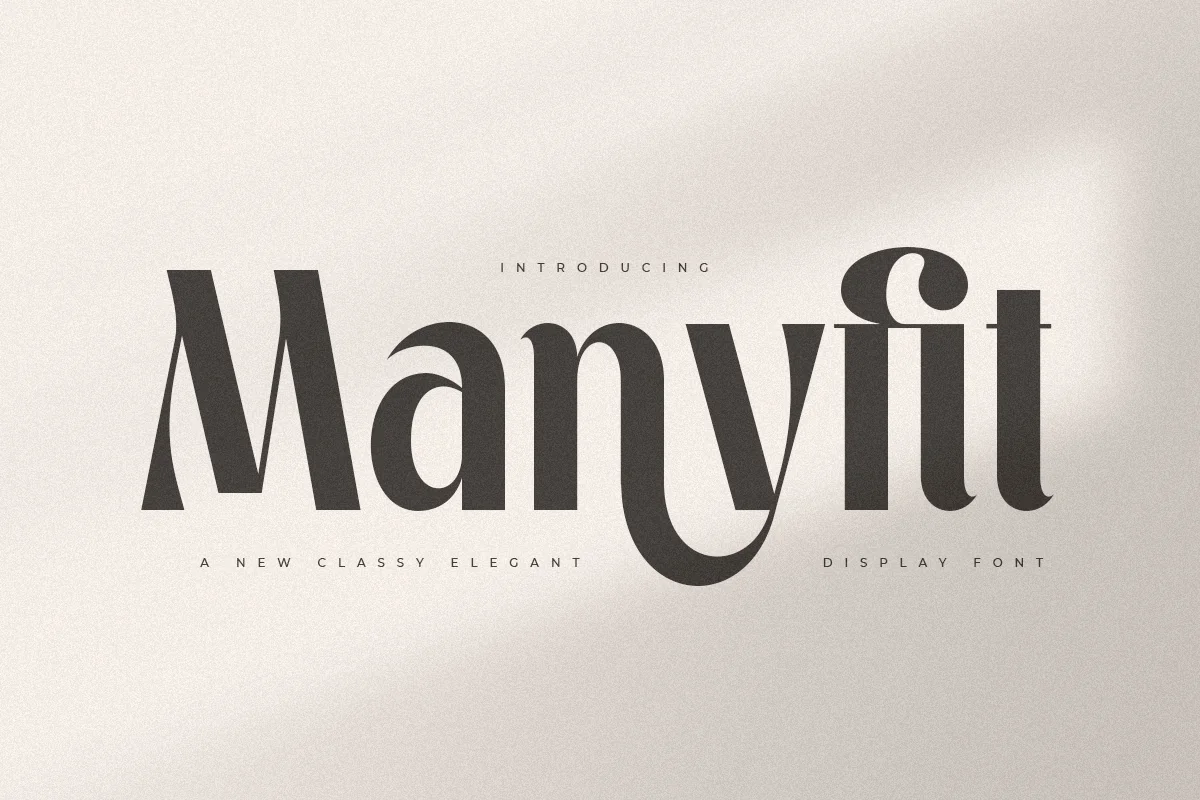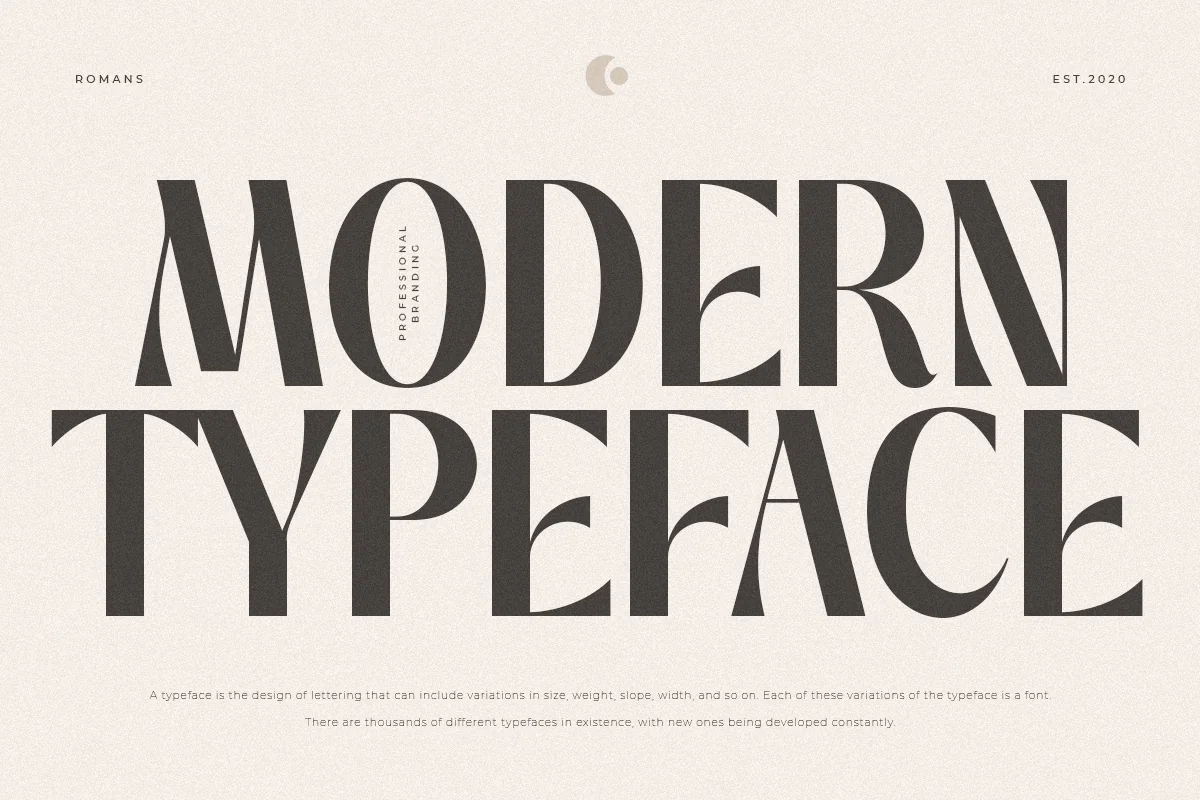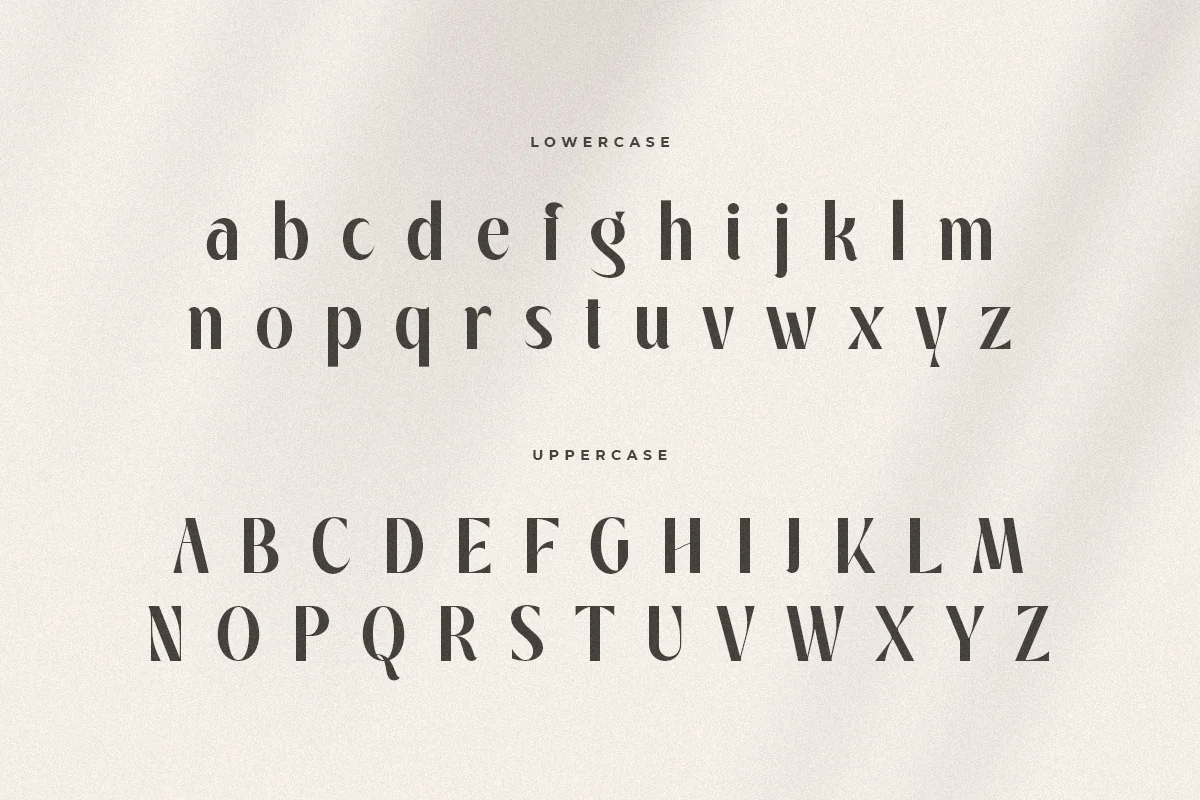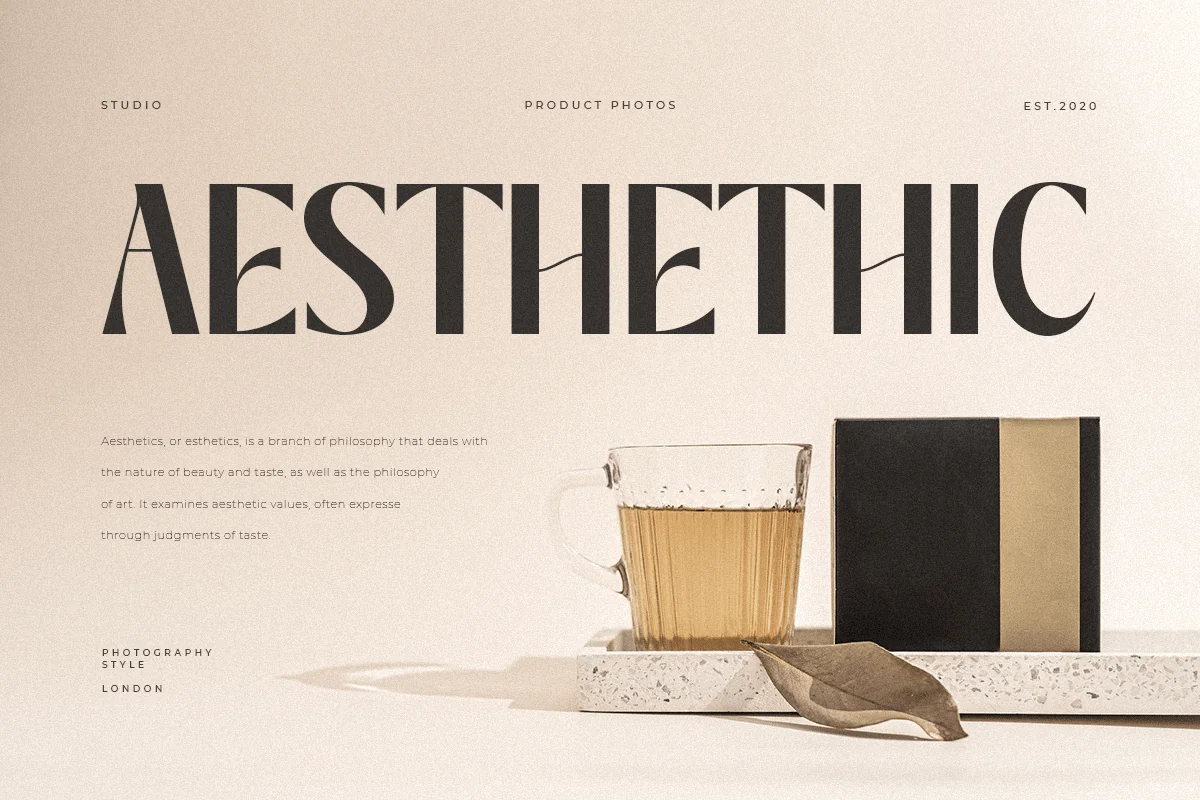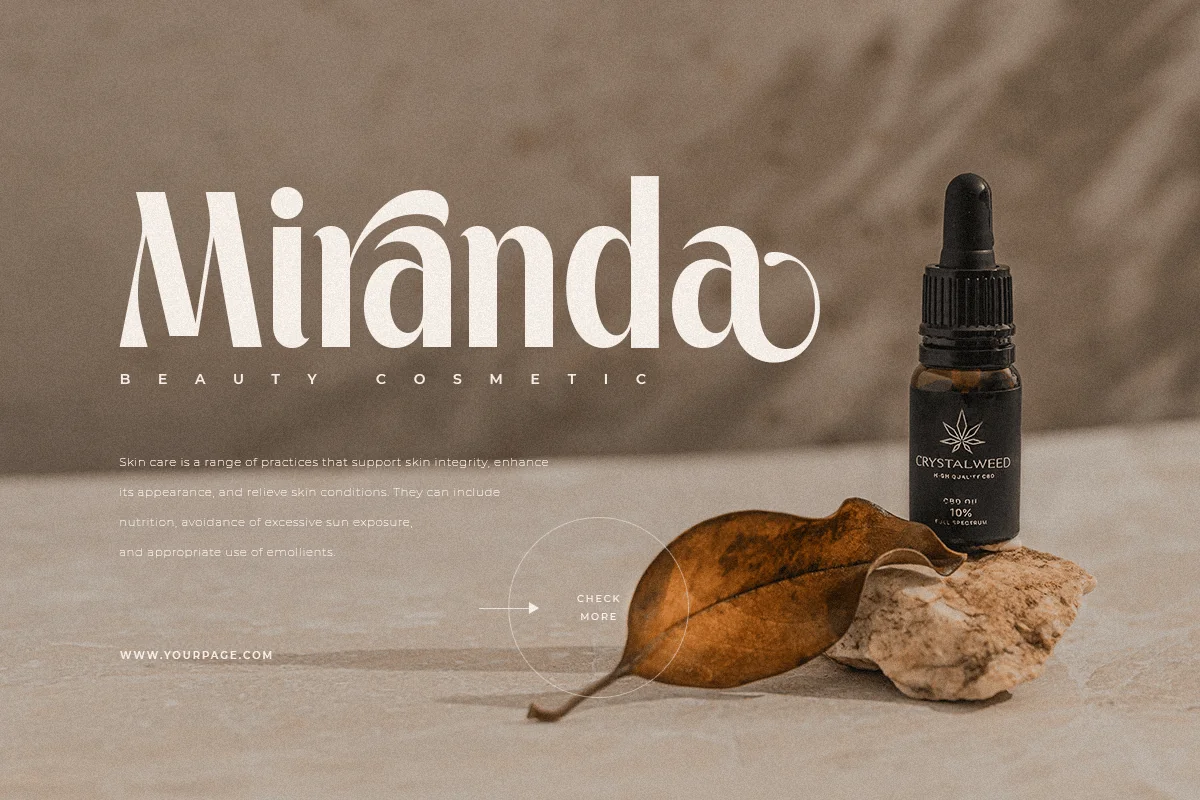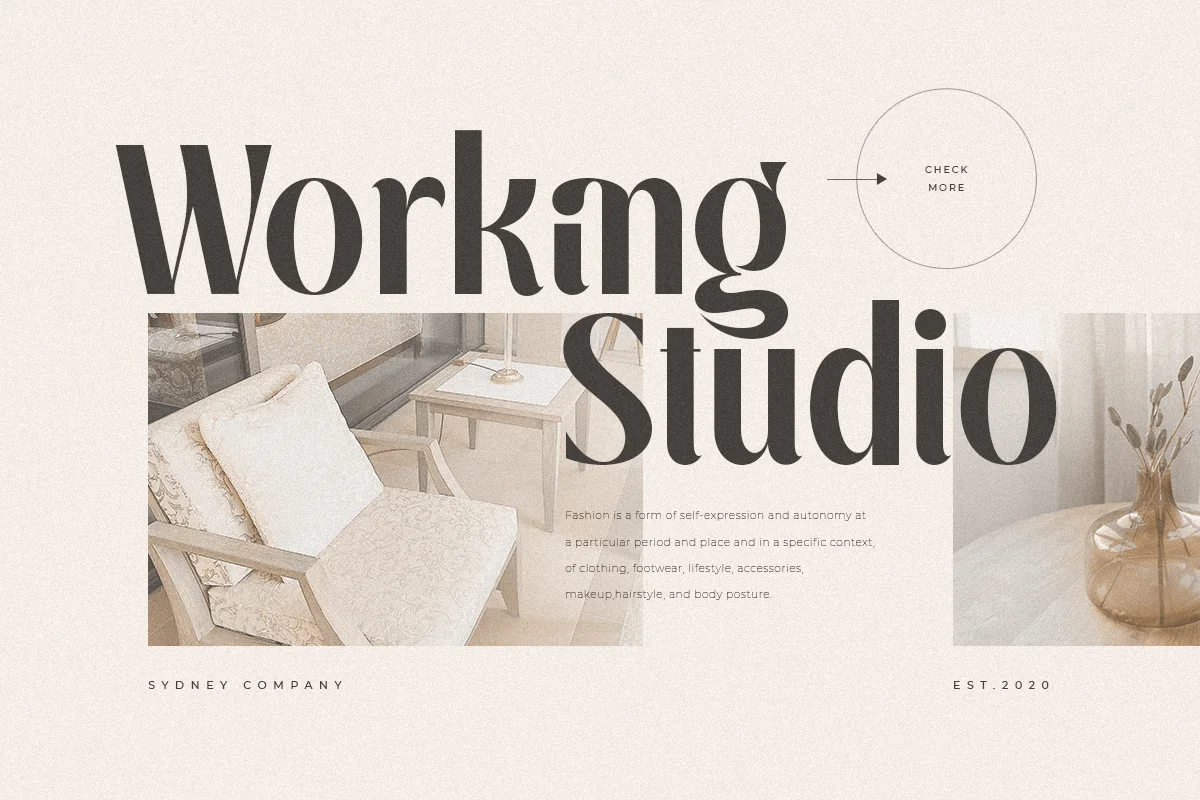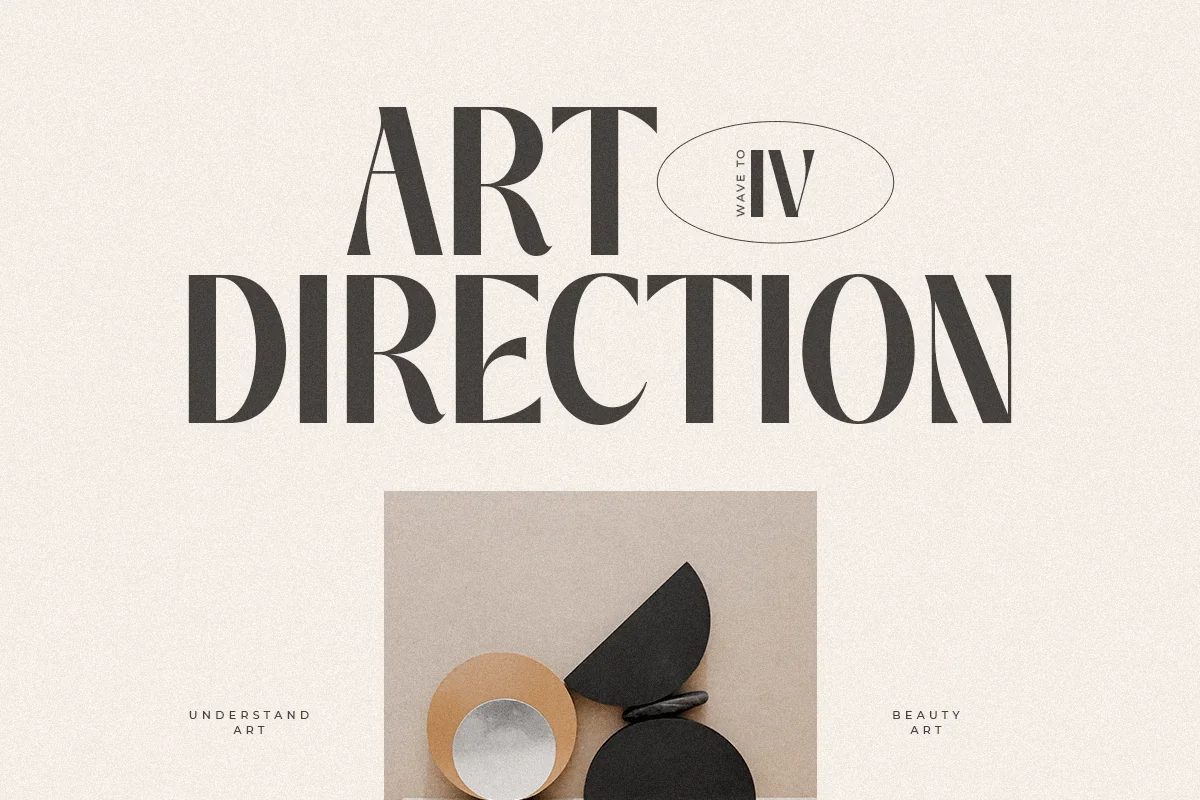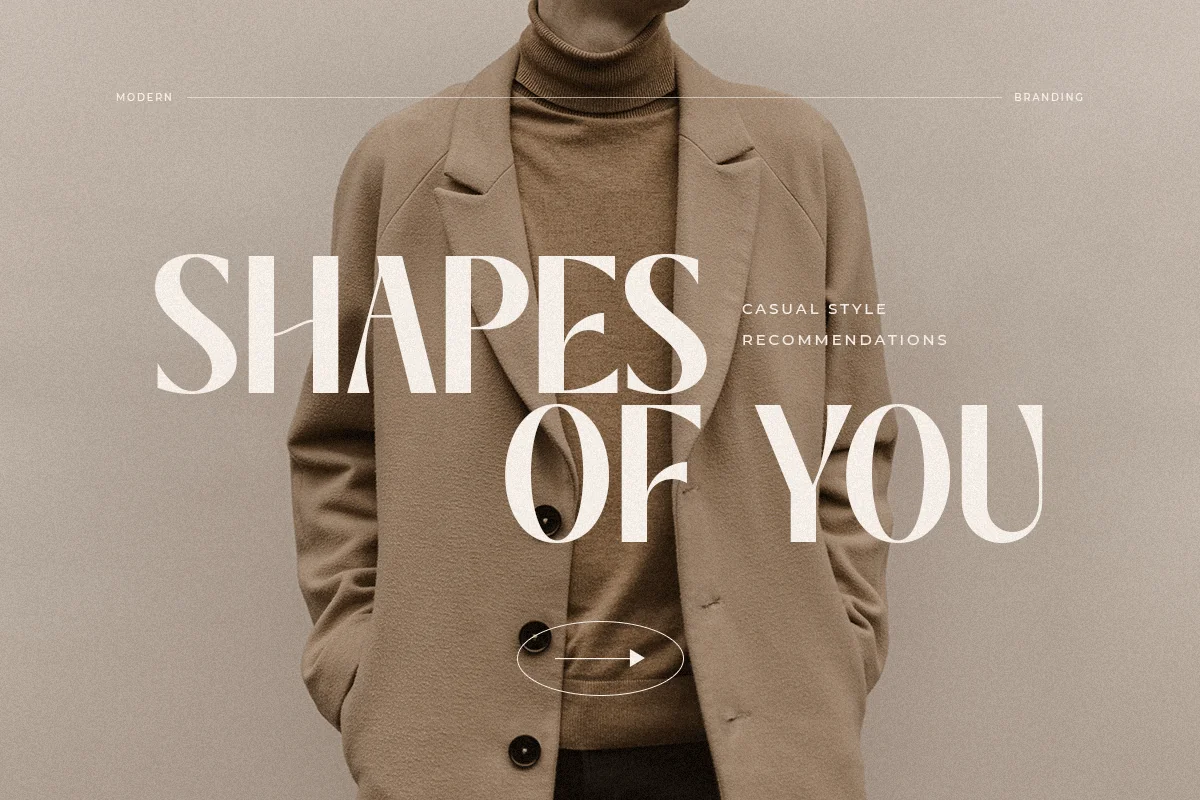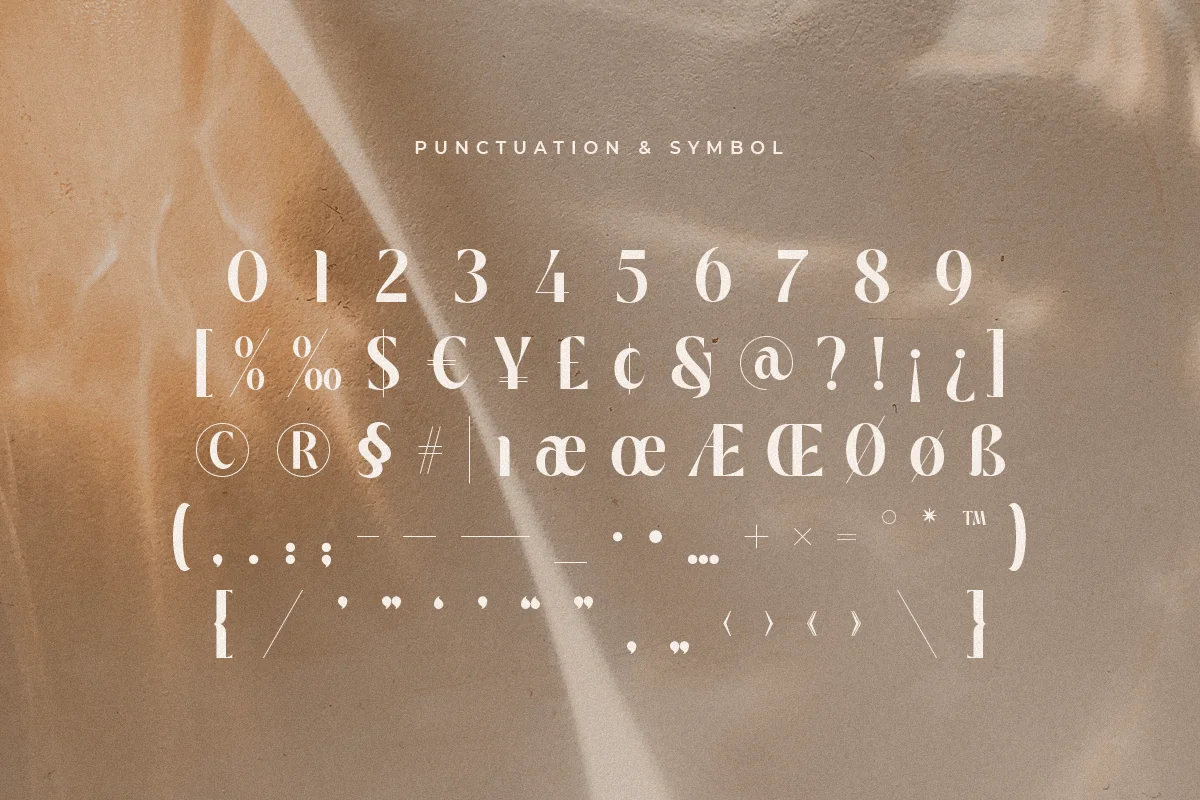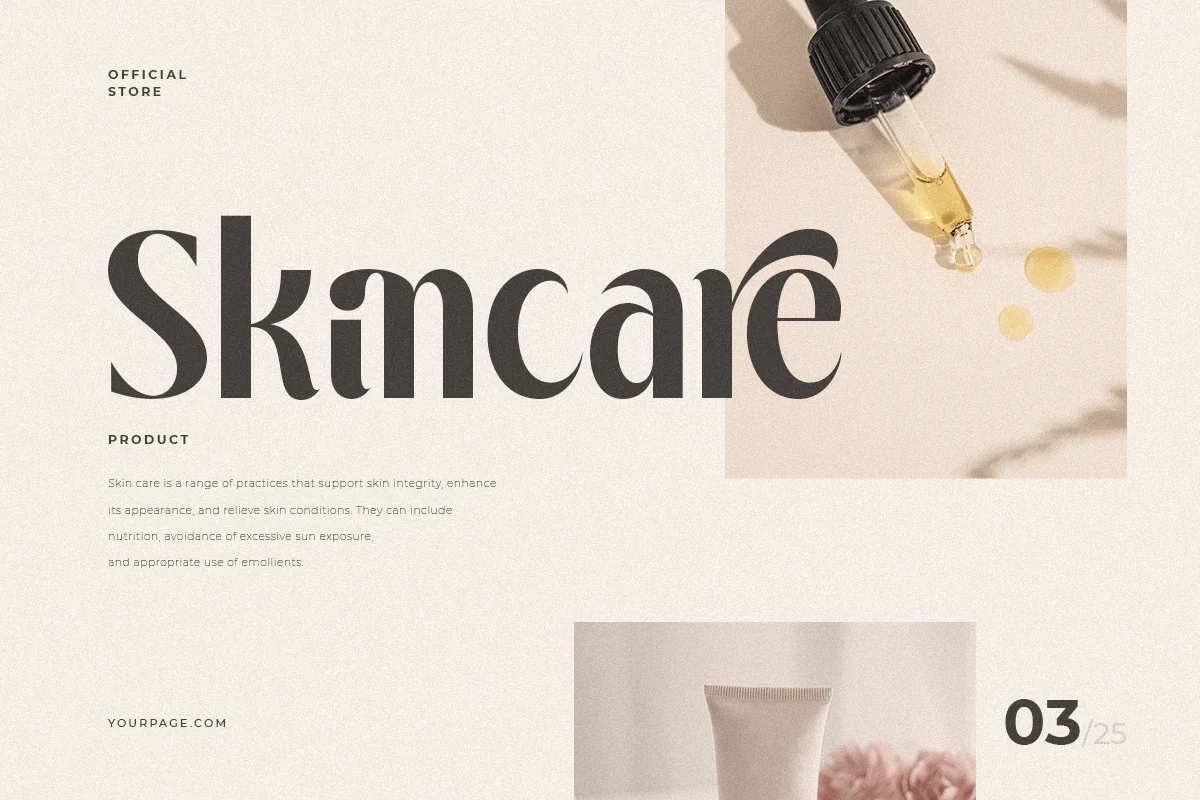
Manyfit – Classy Elegant Luxury Font
A Classy Elegant Luxury font that we created special for elegant branding needs, with unique shape will be ready to add value of your brand. It so nice to leverage designer or product owner that need solutions to make their design look more stylish and modern. And specially for Manyfit font, We prepared any characters to help you create unlimited variations for your creative needs.
- Unique Classy Characters
- Ready with Lowercase and Uppercase characters